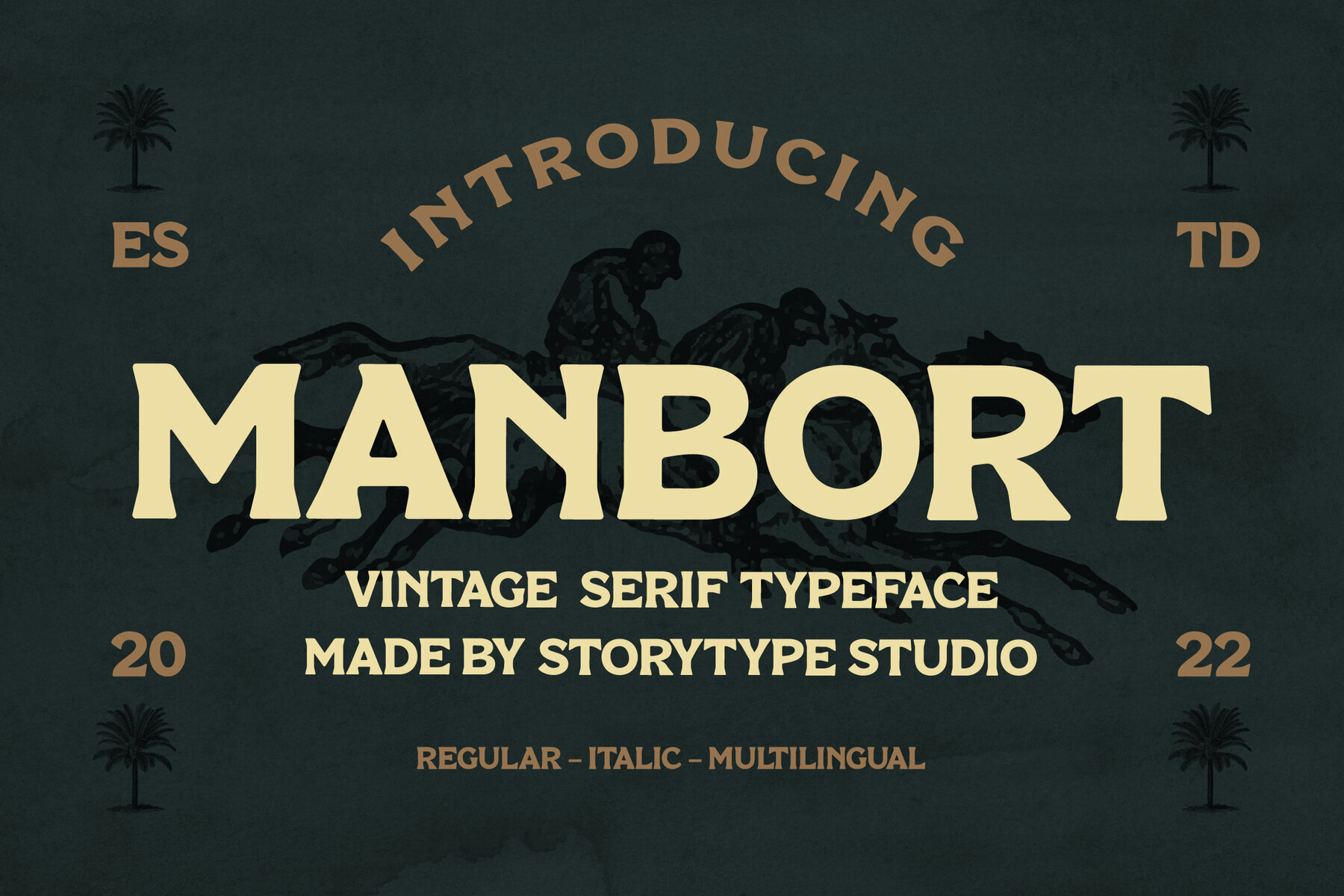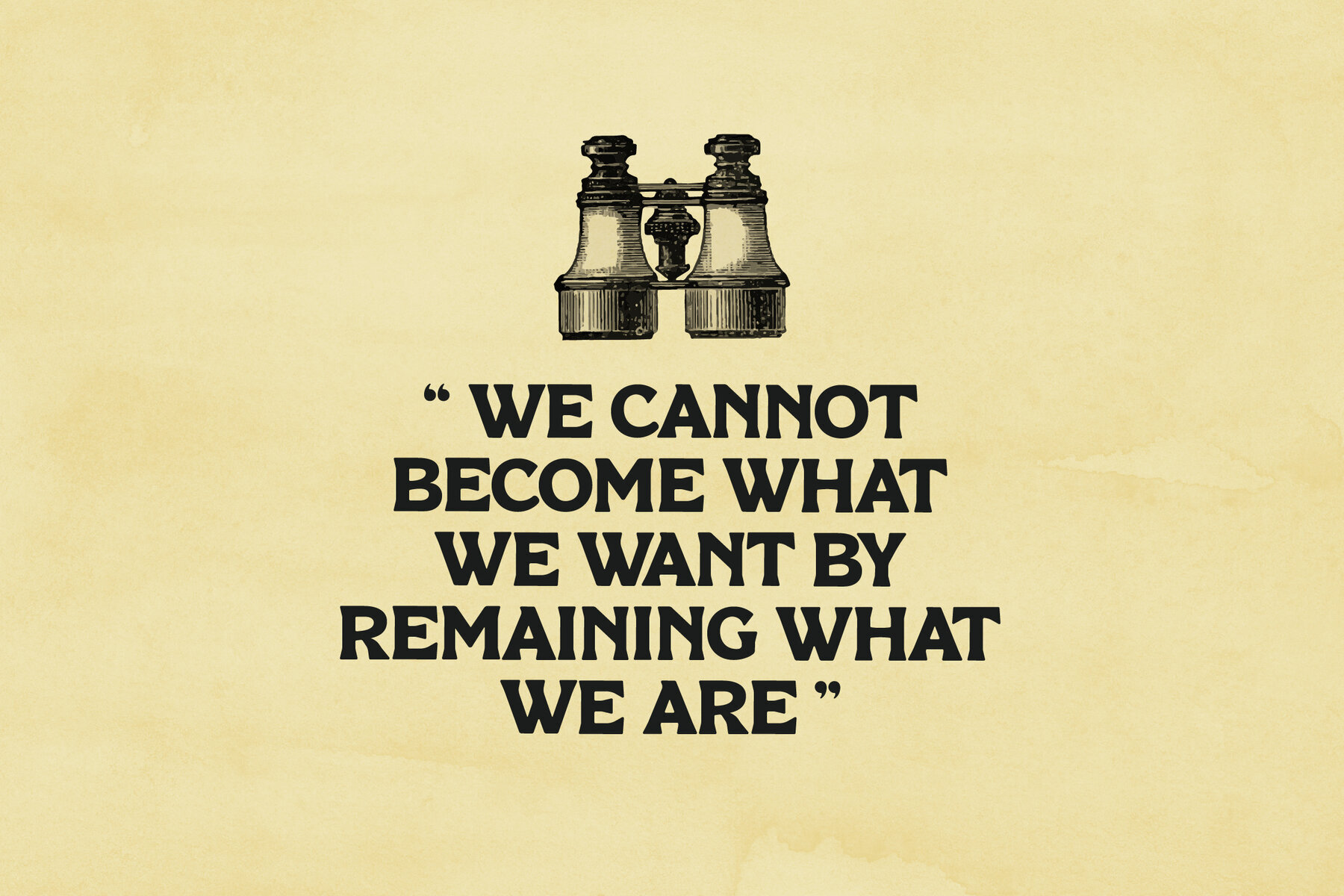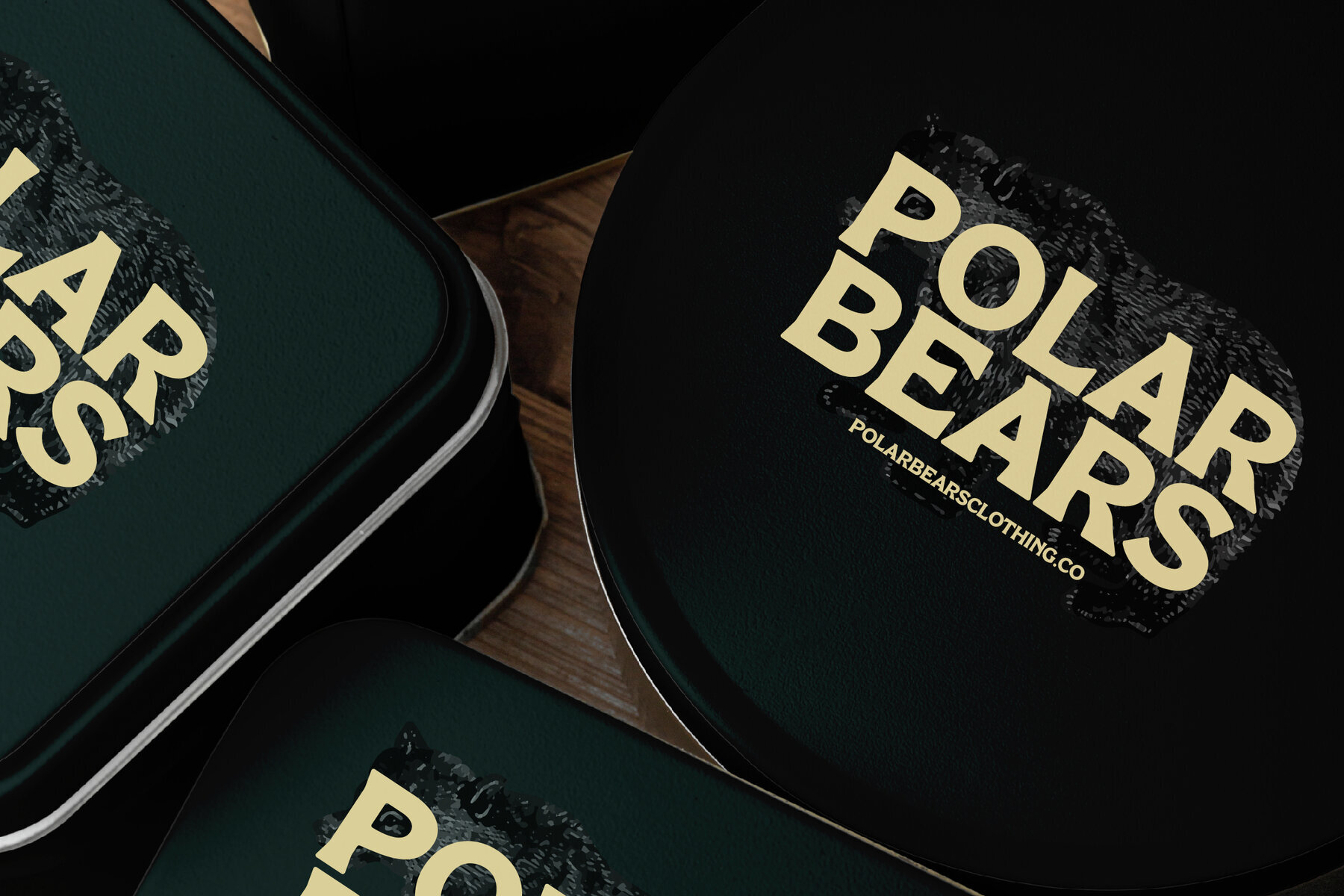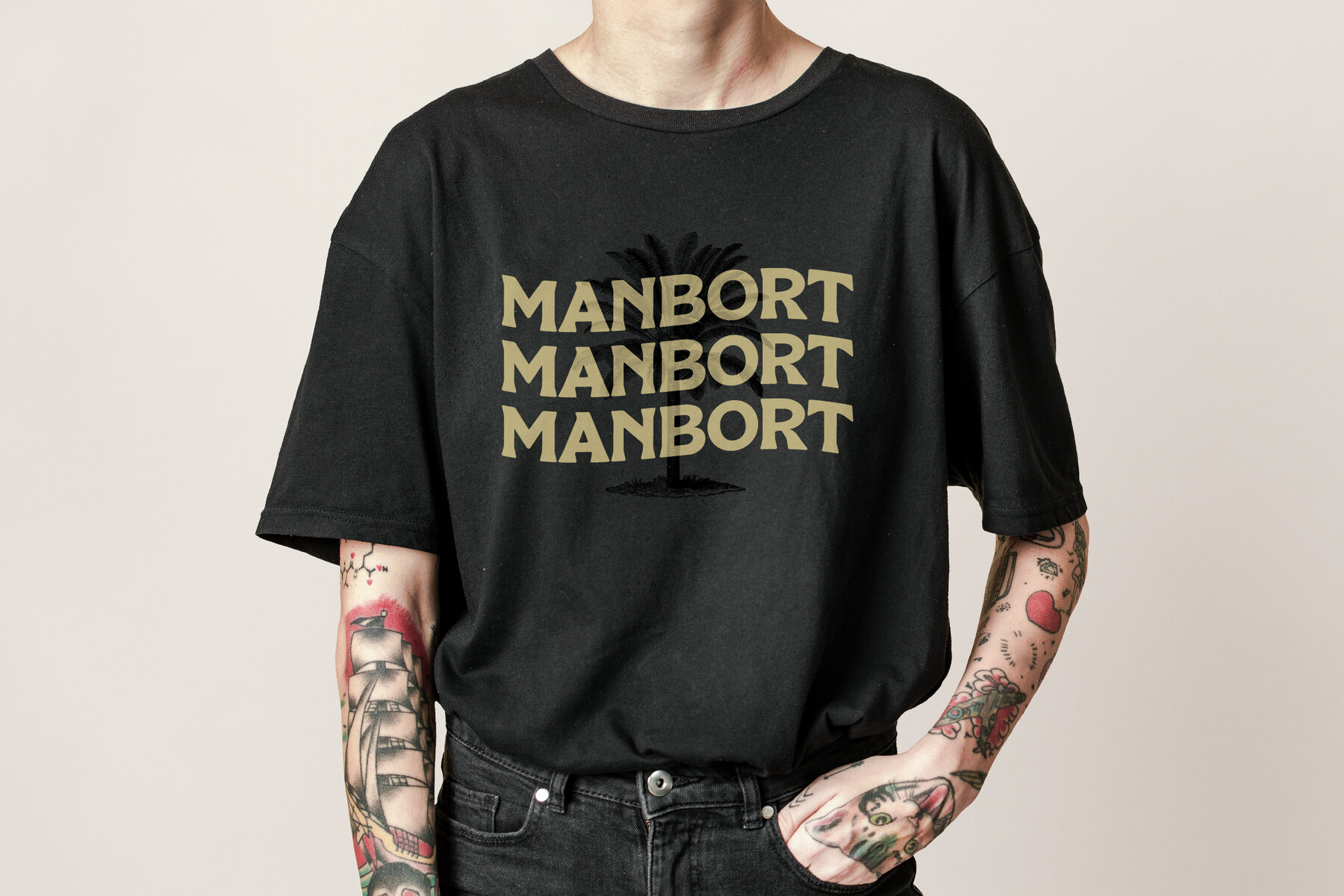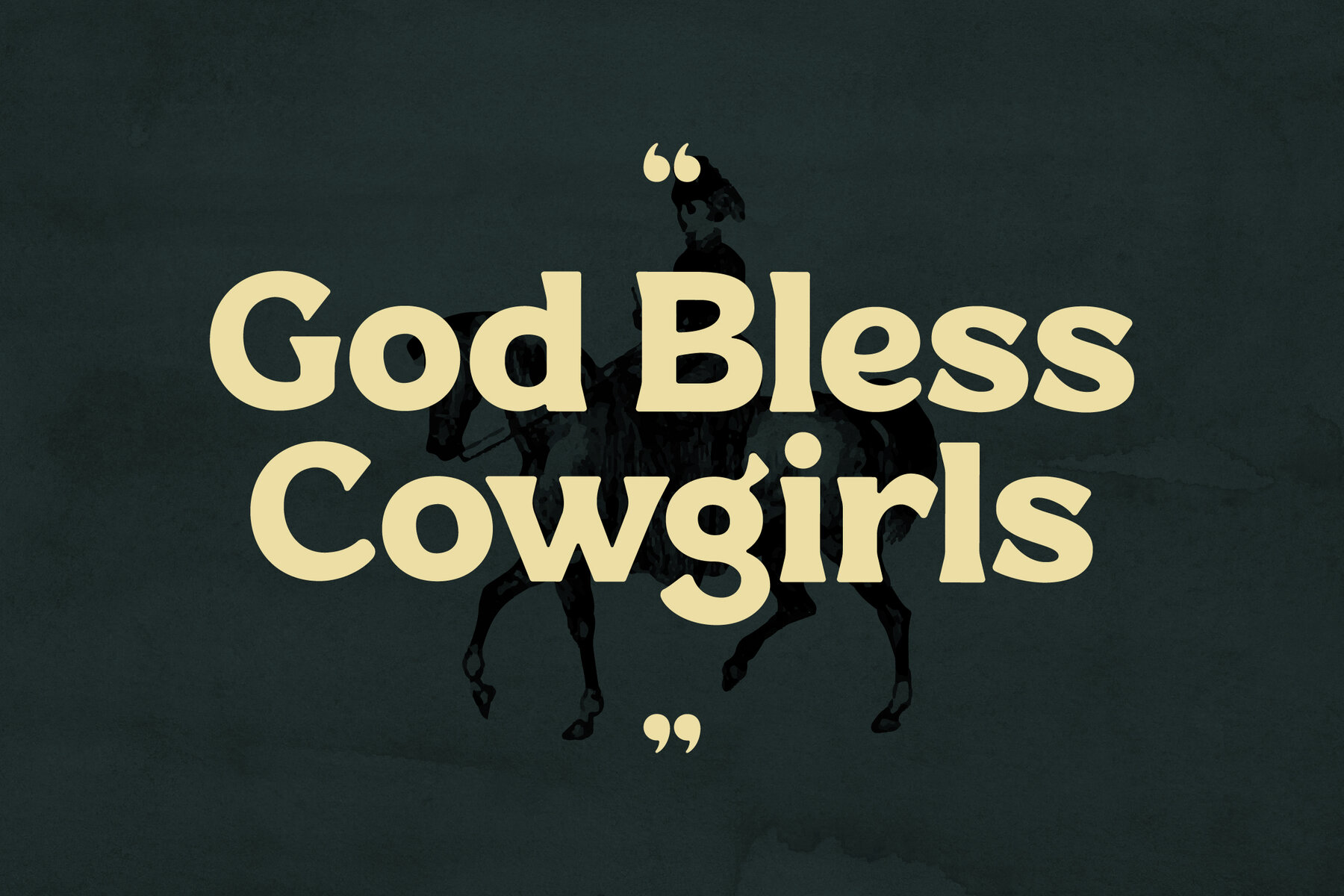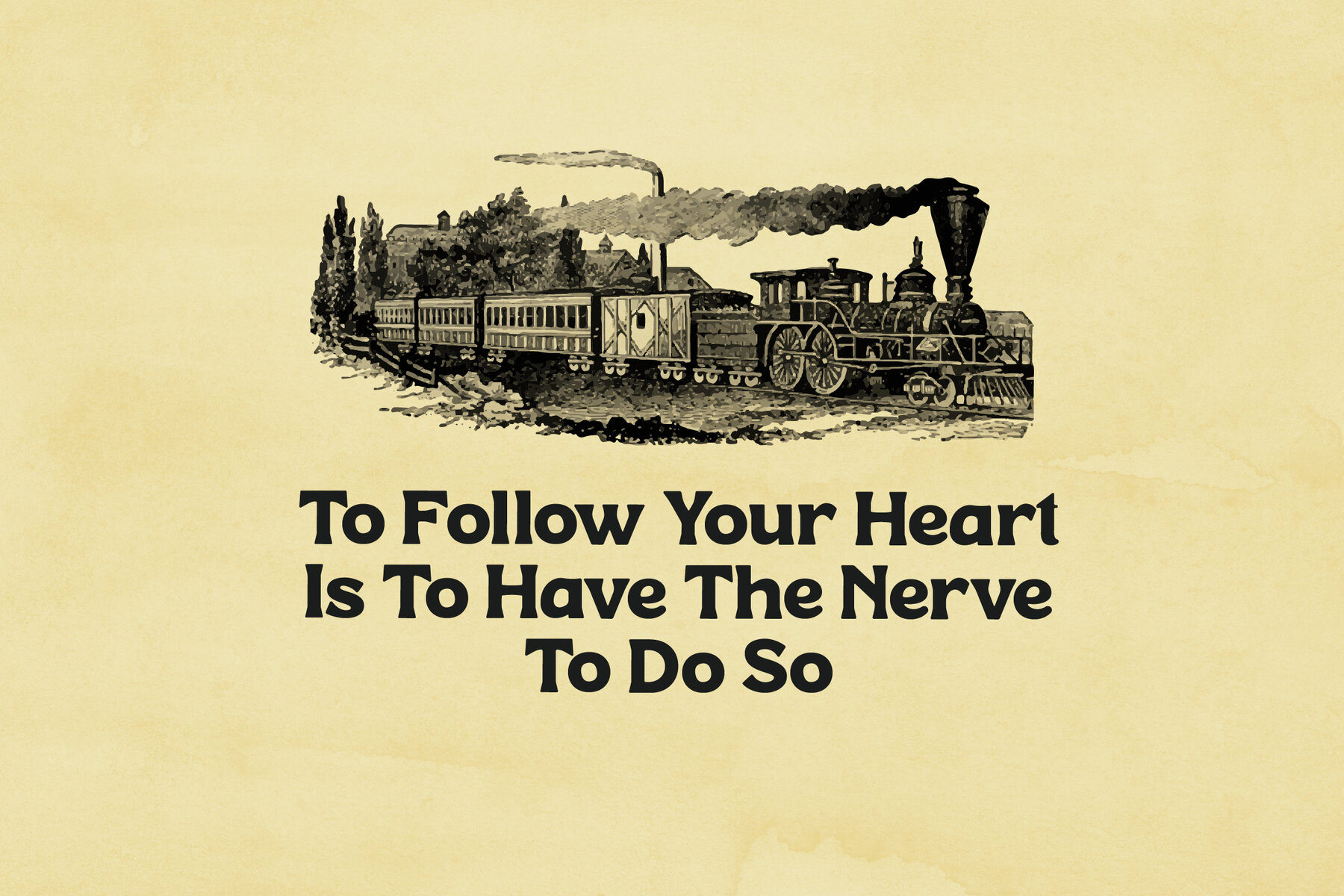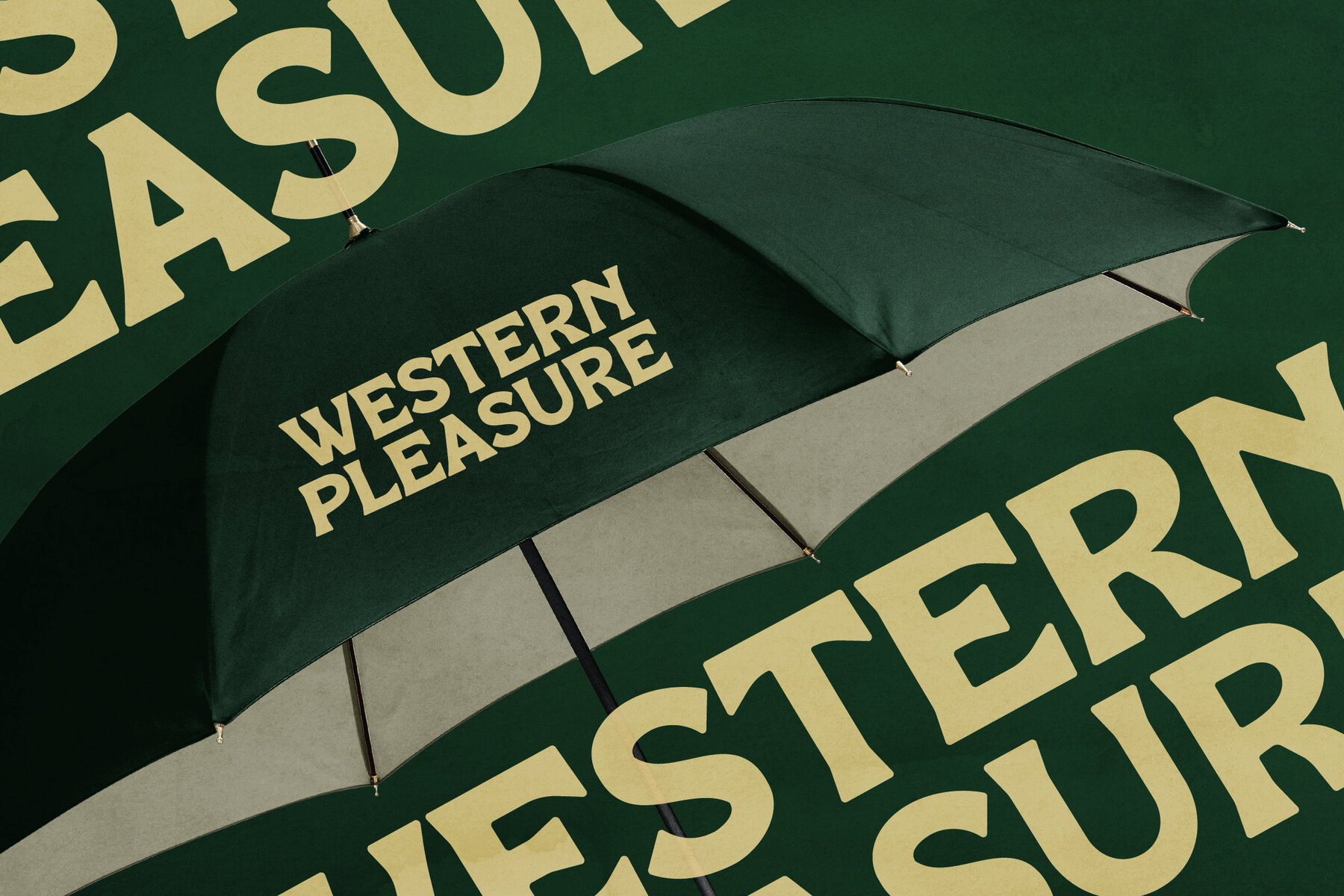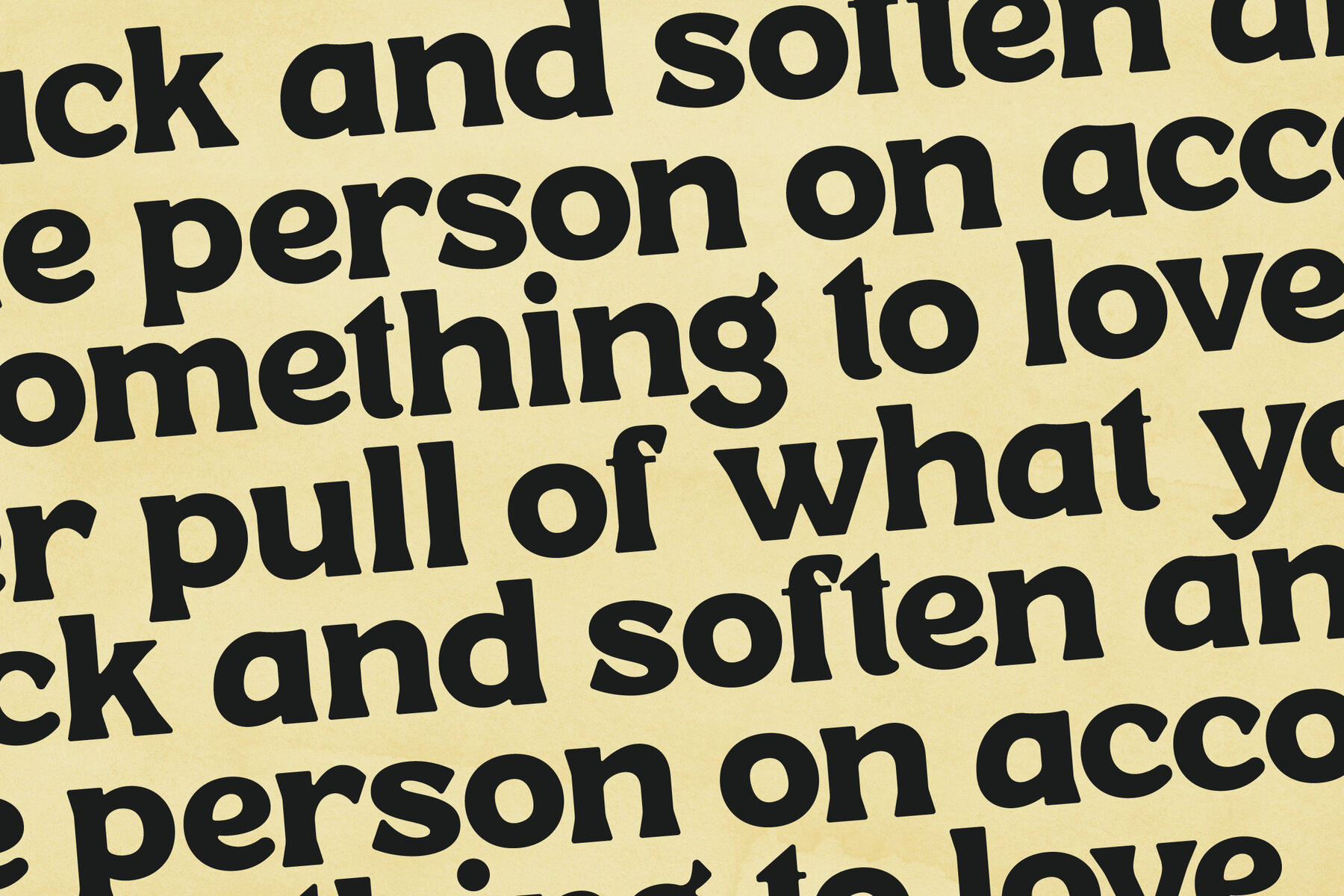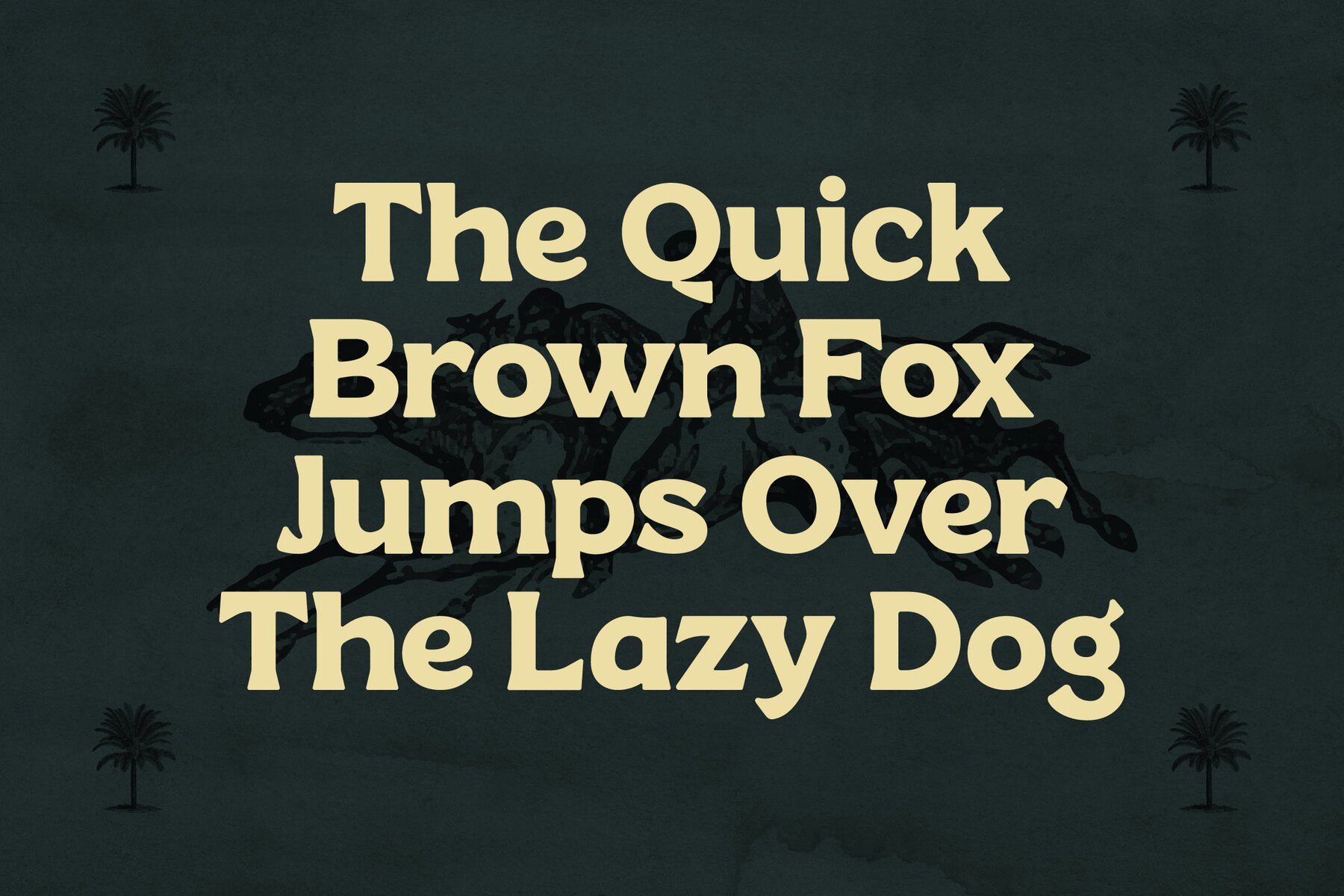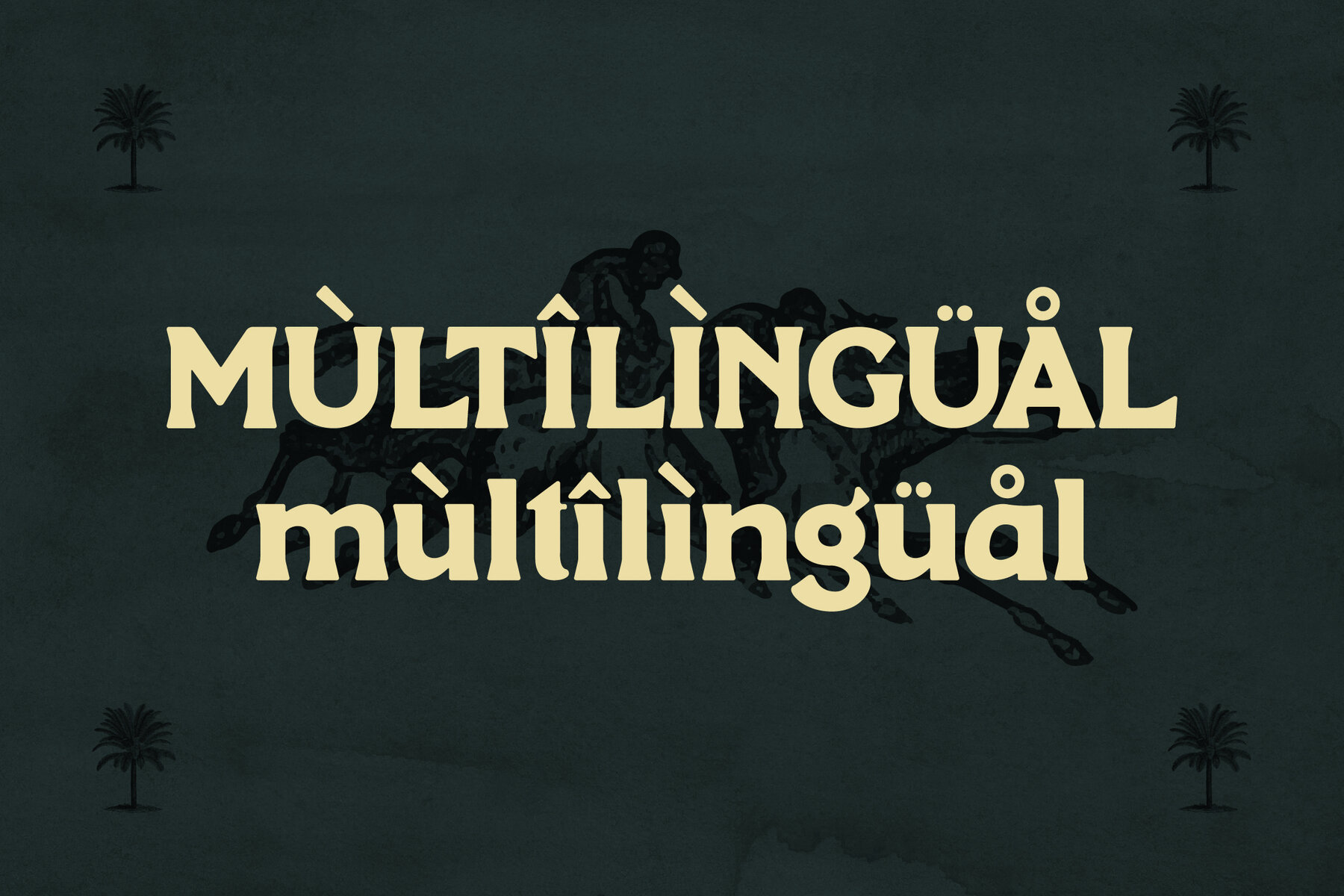
MANBORT Font
Discover sophistication woven into every curve with the MANBORT typeface. This elegant serif balances a modern flair with timeless classicism, lending itself impeccably to luxury branding and refined design projects. The versatile nature of MANBORT makes it ideal for applications such as logo creation, book or movie title designs, fashion brand imagery, and magazine editorials. It provides a clear, stylish option for clothing designs, lettering, and quotes, adding a touch of prestige to every use.MANBORT Typeface: A Modern yet Classic Serif